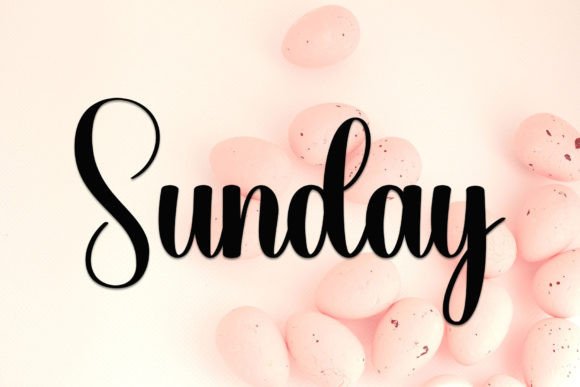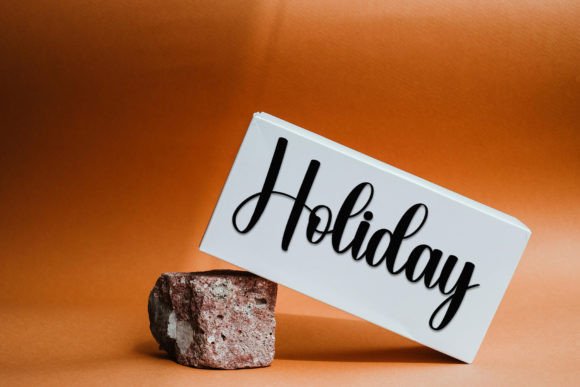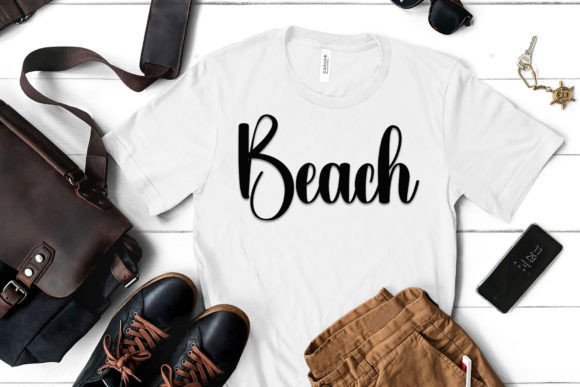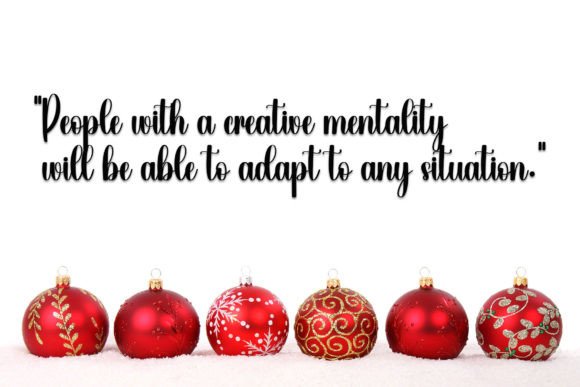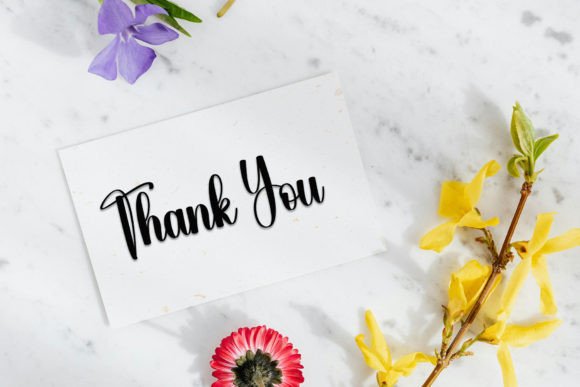
Baby Sweetie Font: The Perfect Holiday Typeface for Your Designs
The holiday season is upon us, and what better way to get into the spirit than with a festive and happy typeface? Look no further than the Baby Sweetie Font, a decorative font that’s sure to add a touch of charm to your designs. In this article, we’ll dive into the world of Baby Sweetie, exploring its unique features, uses, and benefits for designers and crafters alike.
What is Baby Sweetie Font?
Baby Sweetie Font is a beautifully crafted typeface that’s perfect for capturing the magic of the holiday season. With its decorative elements and unique flair, this font is sure to bring a cheerful and nostalgic atmosphere to your words. Whether you’re designing greeting cards, gift labels, or holiday-themed projects, Baby Sweetie is the perfect choice.
Key Features of Baby Sweetie Font
So, what makes Baby Sweetie Font so special? Here are just a few of its key features:
- Festive and Happy Design: Baby Sweetie Font is designed to capture the spirit of the holiday season, with a playful and cheerful vibe that’s sure to put a smile on your face.
- Decorative Elements: This font features a range of decorative elements, including intricate details and flourishes that add a touch of elegance to your designs.
- Unique Flair: Baby Sweetie Font has a unique flair that’s all its own, setting it apart from other holiday-themed fonts.
- PUA Coded: This font is PUA (Private Use Area) coded, which means you can access all the amazing glyphs and ligatures easily, making it simple to use and customize.
Uses for Baby Sweetie Font
So, what can you use Baby Sweetie Font for? The possibilities are endless! Here are just a few ideas to get you started:
- Greeting Cards: Add a personal touch to your holiday greeting cards with Baby Sweetie Font, perfect for Christmas, Hanukkah, or any other winter celebration.
- Gift Labels: Make your gifts stand out with custom labels featuring Baby Sweetie Font, adding a touch of festive flair to your presents.
- Holiday-Themed Projects: From invitations to party decorations, Baby Sweetie Font is the perfect choice for any holiday-themed project.
So, why should designers and crafters choose Baby Sweetie Font for their projects? Here are just a few benefits:
- Easy to Use: With its PUA coding, Baby Sweetie Font is easy to use and customize, even for those with limited design experience.
- Versatile: This font can be used for a wide range of projects, from digital designs to print materials.
- Unique and Eye-Catching: Baby Sweetie Font is sure to make your designs stand out, with its unique flair and decorative elements.
Tips for Using Baby Sweetie Font
Here are a few tips for getting the most out of Baby Sweetie Font:
- Experiment with Sizes and Colors: Don’t be afraid to experiment with different sizes and colors to find the perfect look for your design.
- Pair with Other Fonts: Try pairing Baby Sweetie Font with other fonts to create a unique and eye-catching combination.
- Use for Headings and Titles: This font is perfect for headings and titles, adding a touch of festive flair to your designs.